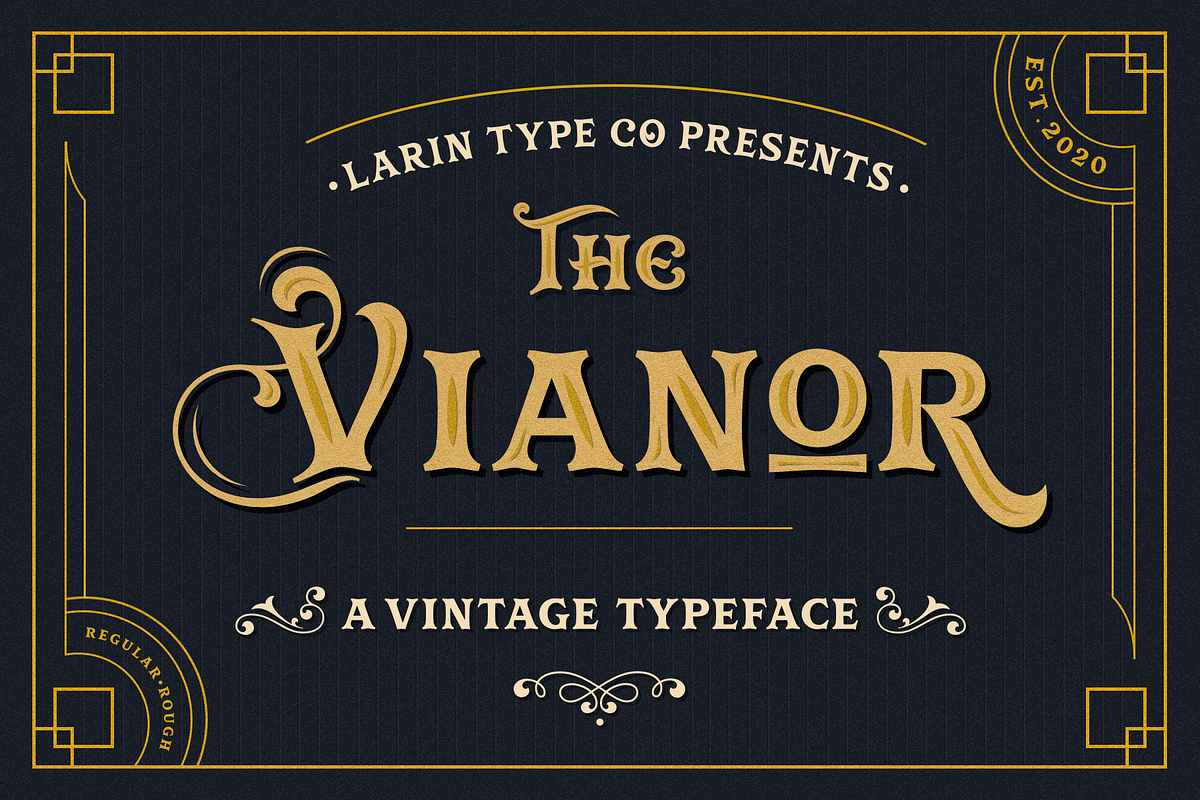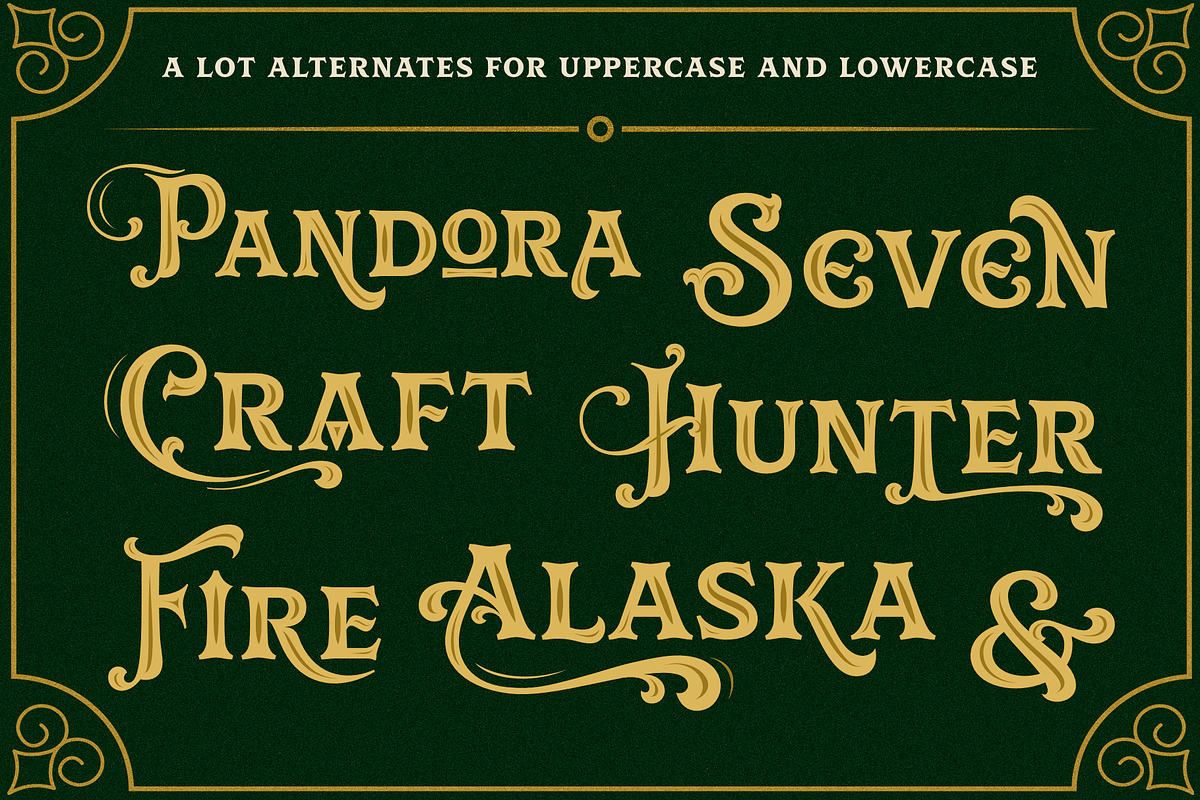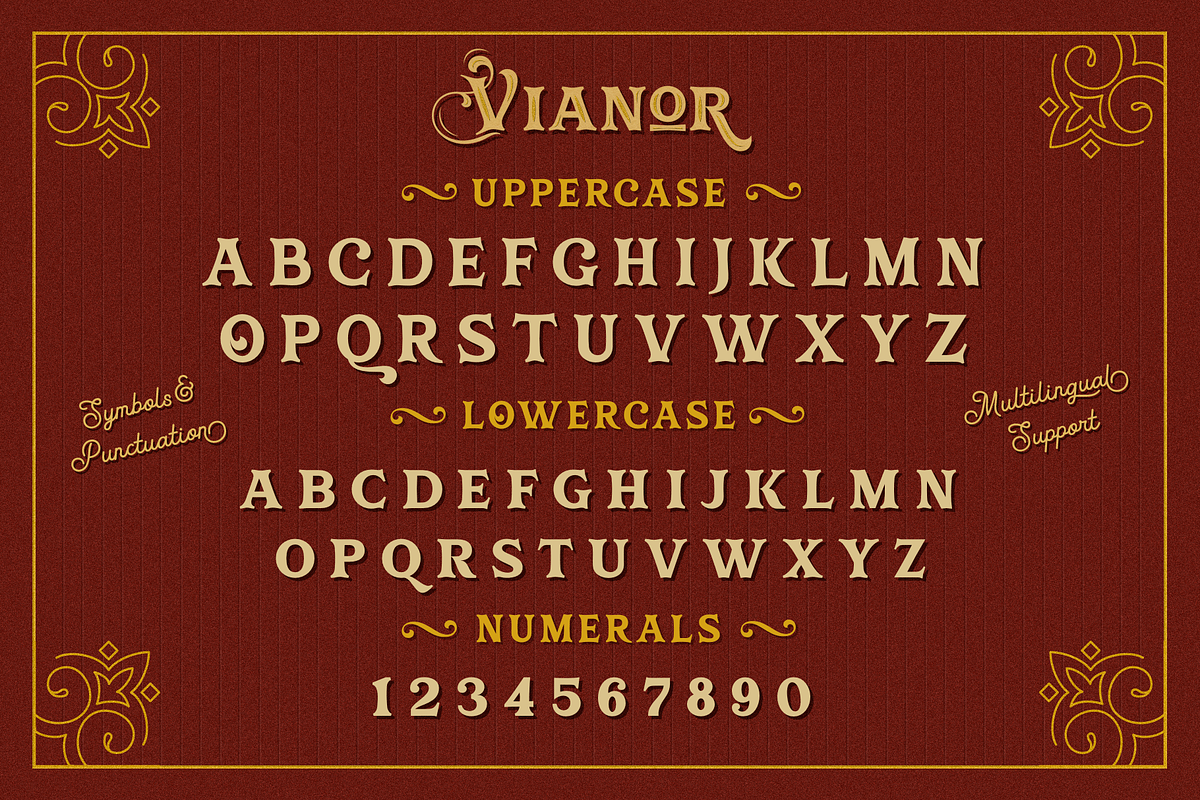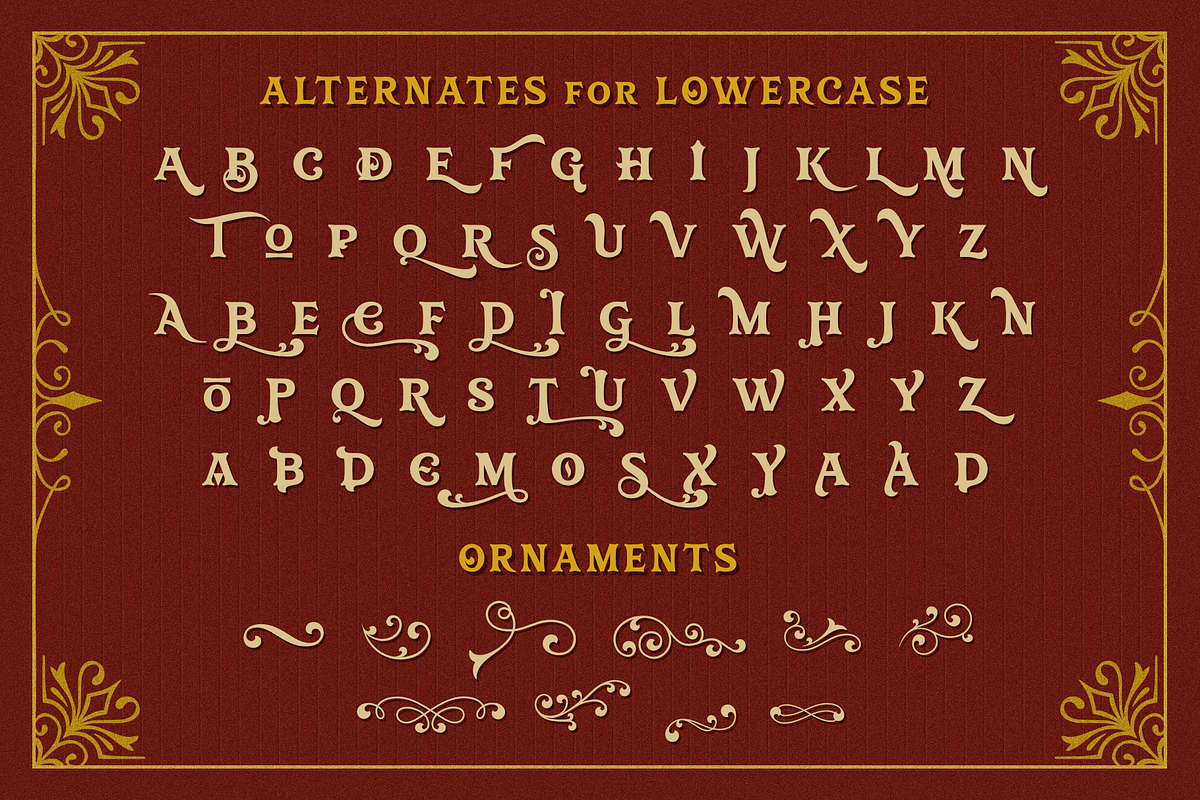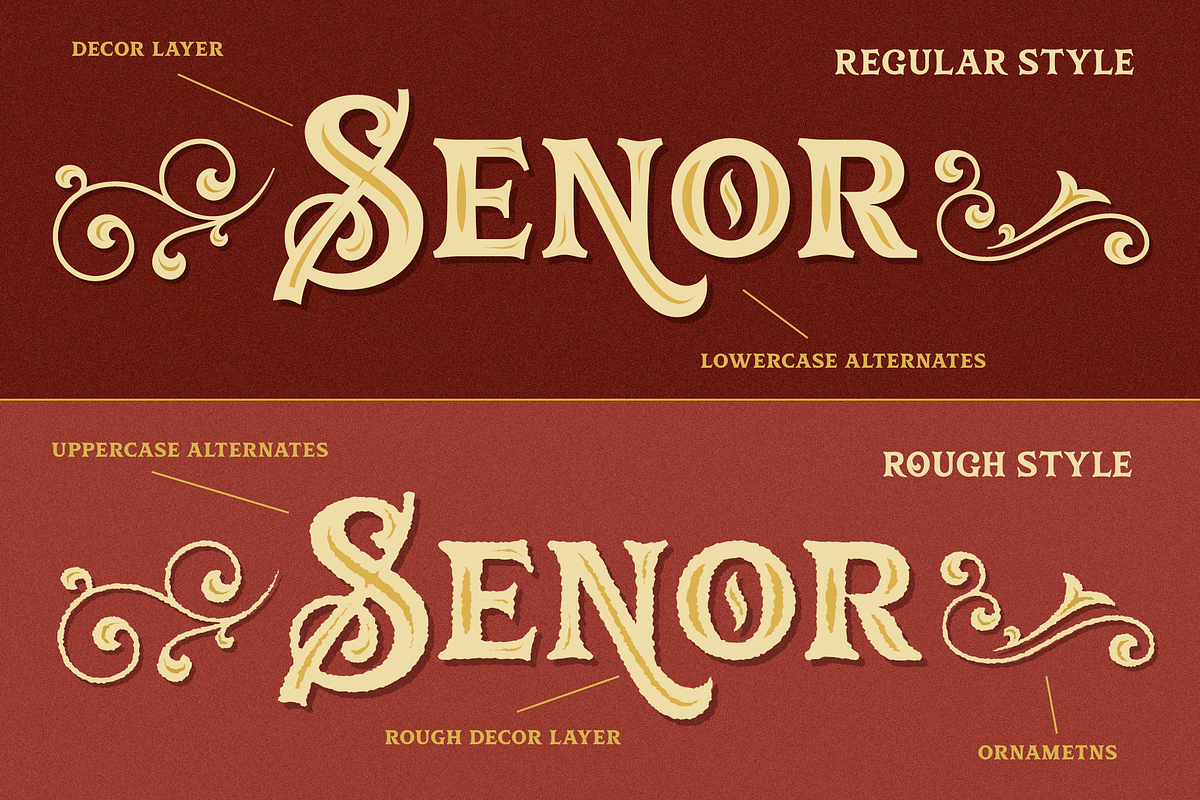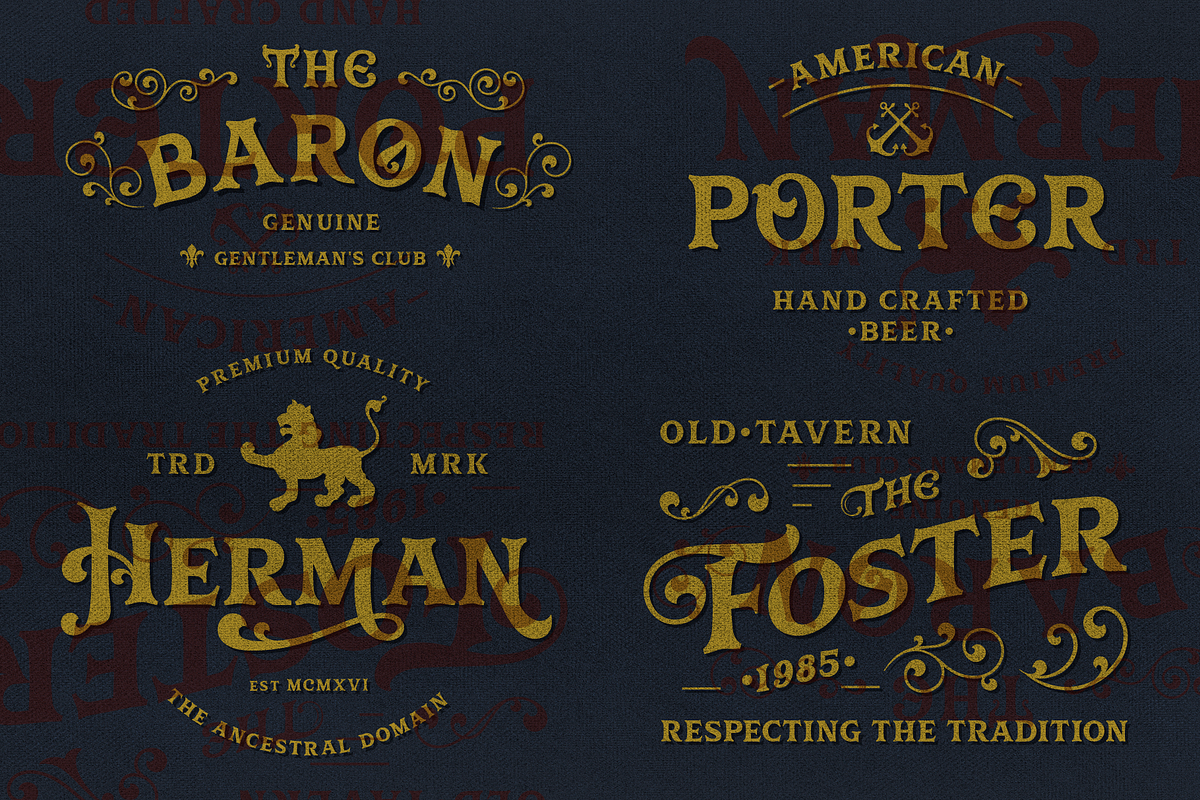
Vianor
Vianor this is a lovely vintage label font. It is presented in two styles, regular and rough, as well as a decorative layer for them. This font works great with text, but it looks even better with display titles, logos, and others. This font is included many alternates for the uppercase and lowercase has alternatives for uppercases and many alternates for lowercaes, with them you can make your design more expressive, varied and playful, change them and you will see how many options you can get for your design, also use ornaments to complement your design.
Following international symbols support: ÀÁÂÃÄÅĄÇĆÈÉÊËĘÌÍÎÏÐÑŃŁÒÓÔÕÖØÙÚÛÜŚŠŸÝŹŻŽßàáâãäåçèéêëìíîïðñòóôõöøùúûüýÿąćęłńśšźżž
Full alphabet with Uppercase and Lowercase A-z
Numbers, fractions
Punctuation and symbols
Alternates for uppercase
Alternates for lowercase
Ornaments